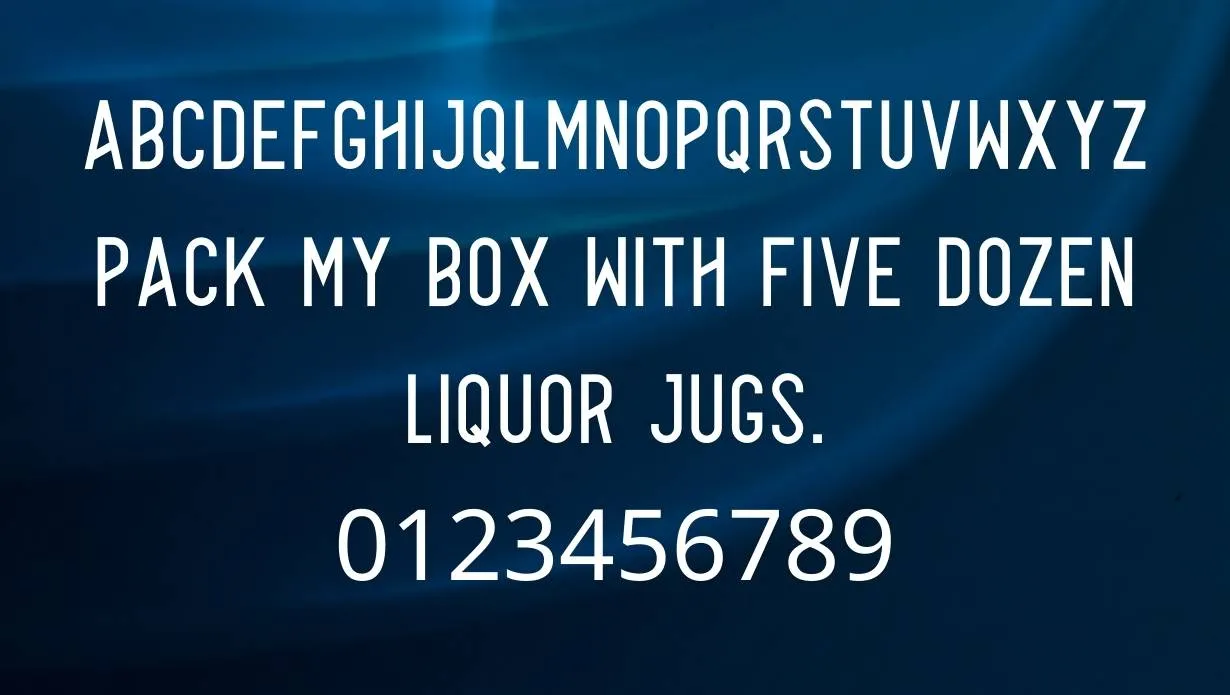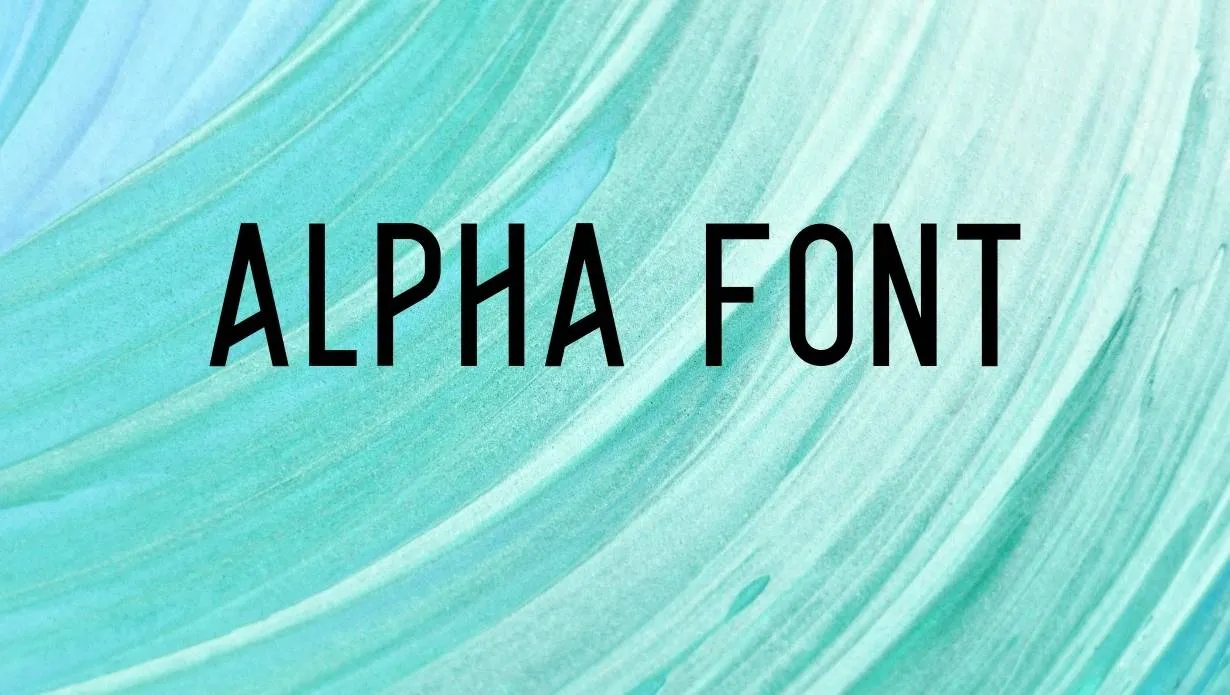
About Alpha Font Free Download
Alpha Font Free Download is a modern typeface available in multiple variants and styles.
- Alpha Font Regular
- Alpha Font Bold
- Alpha Font Italic